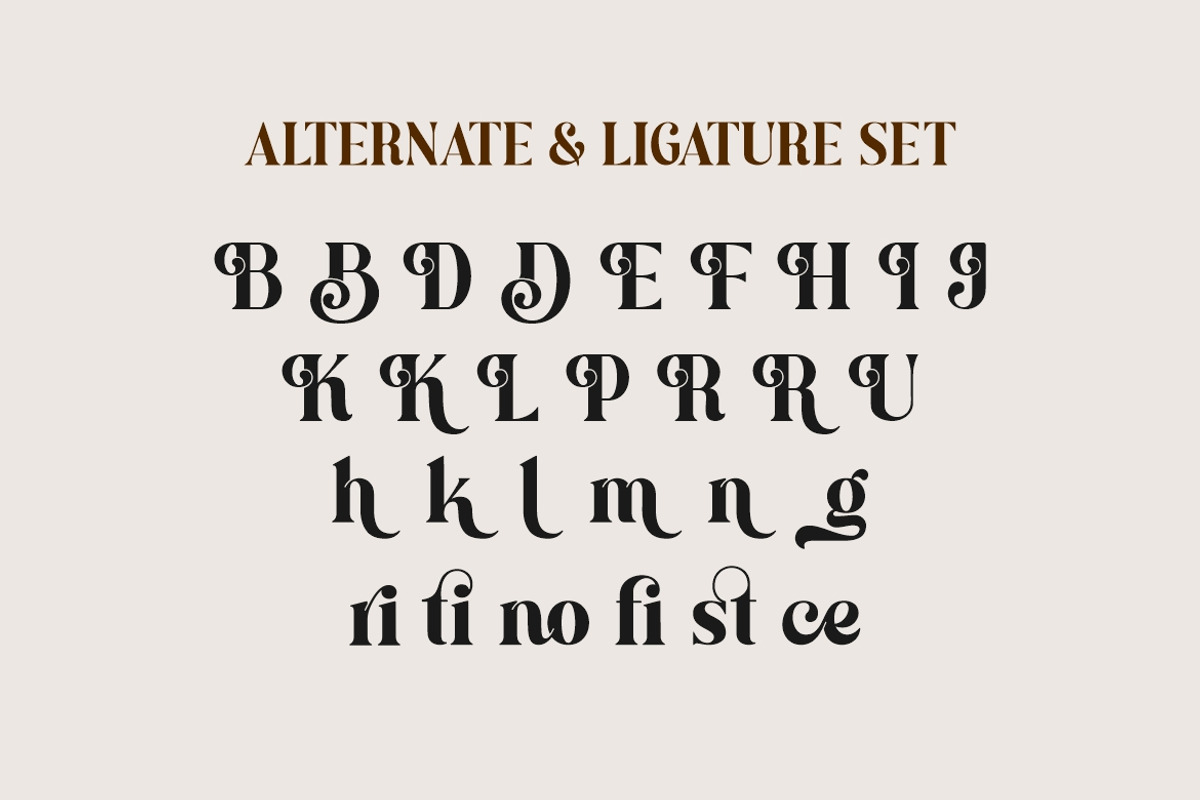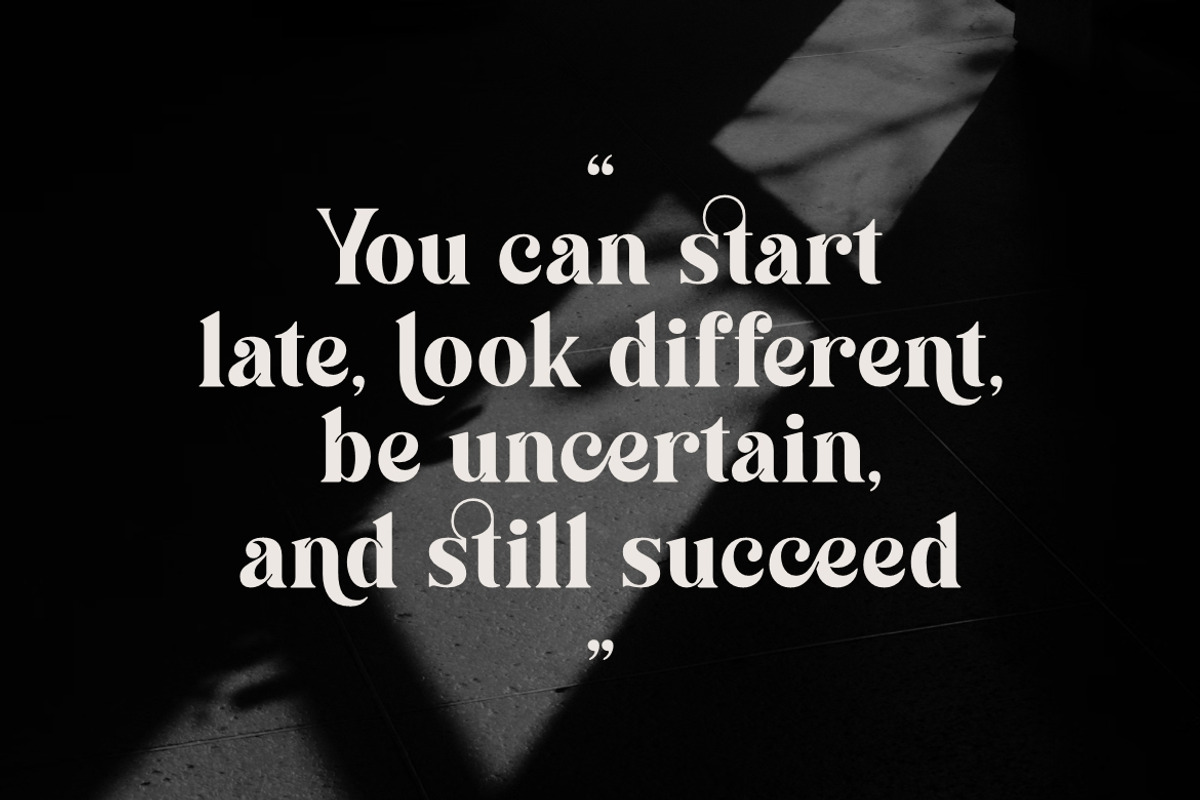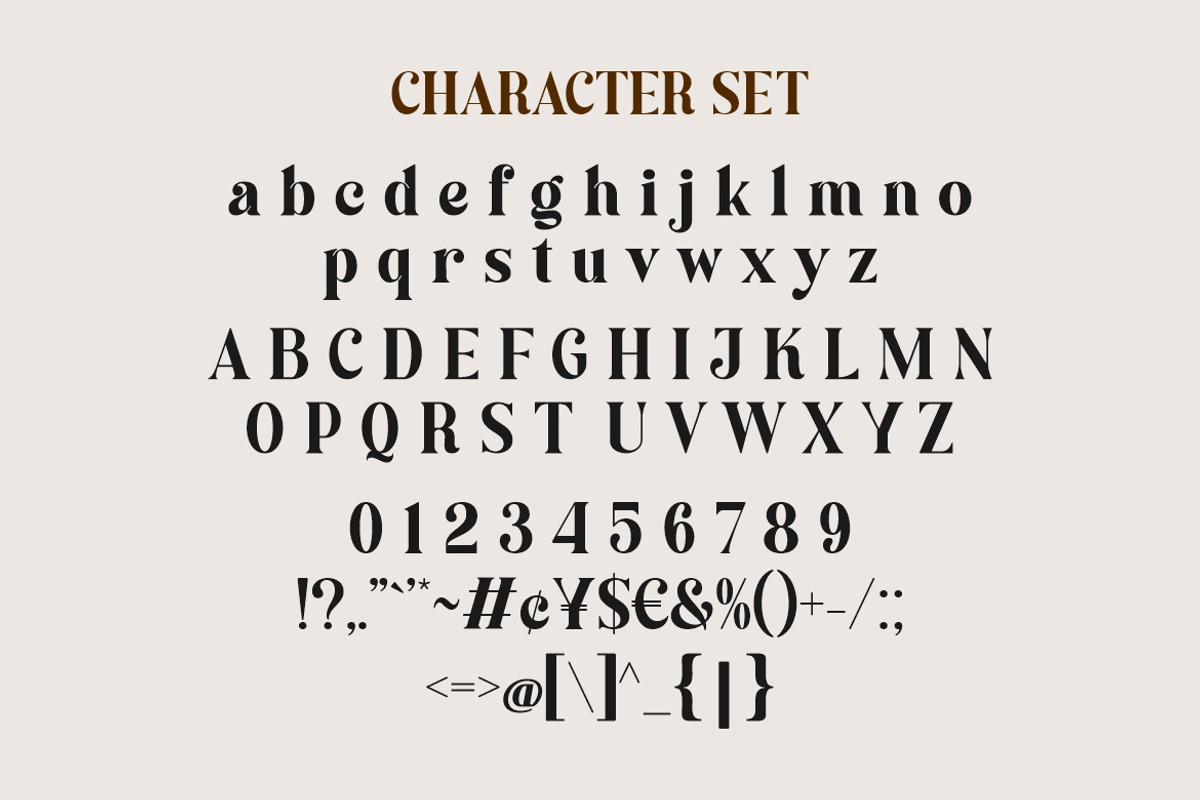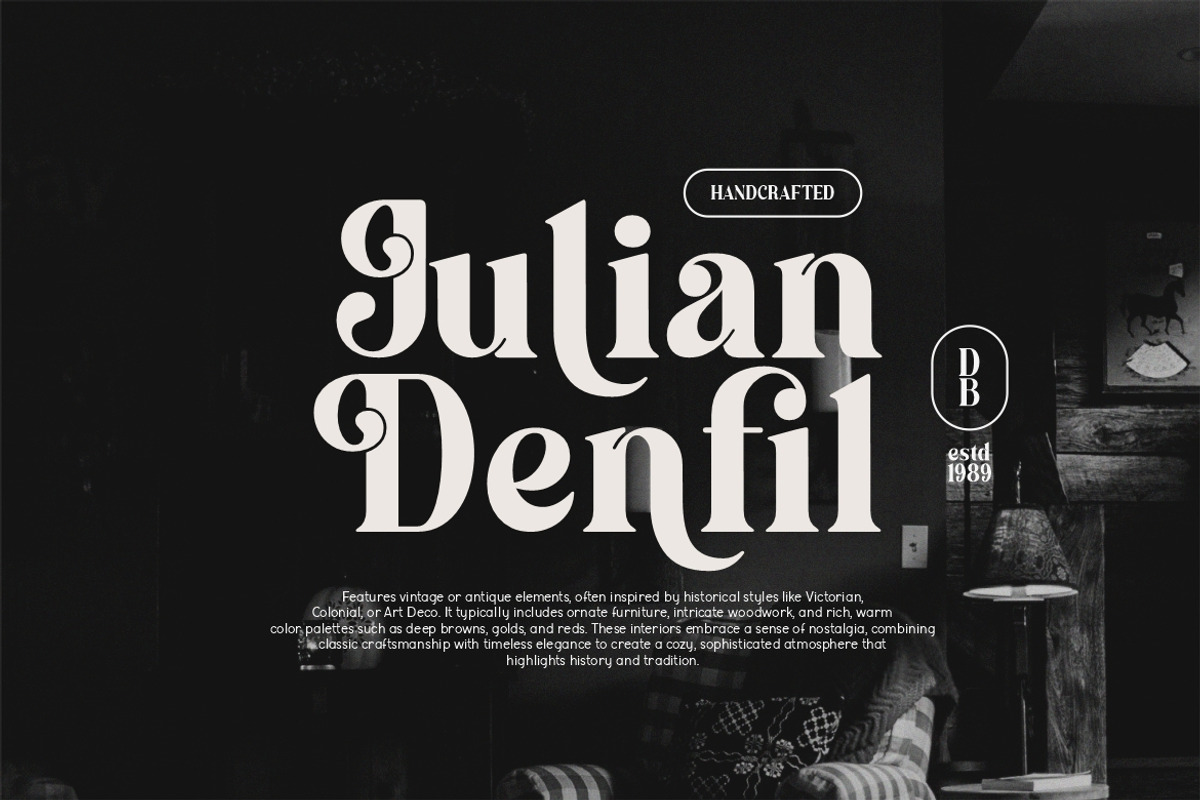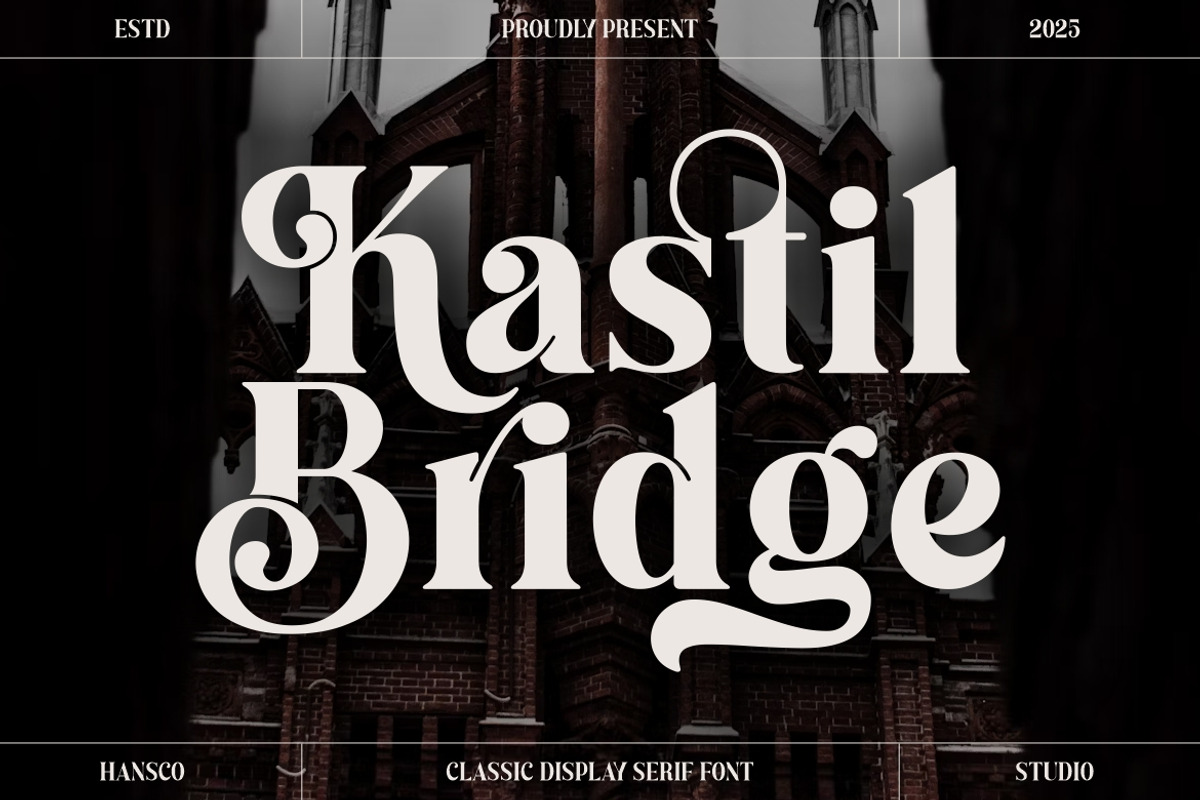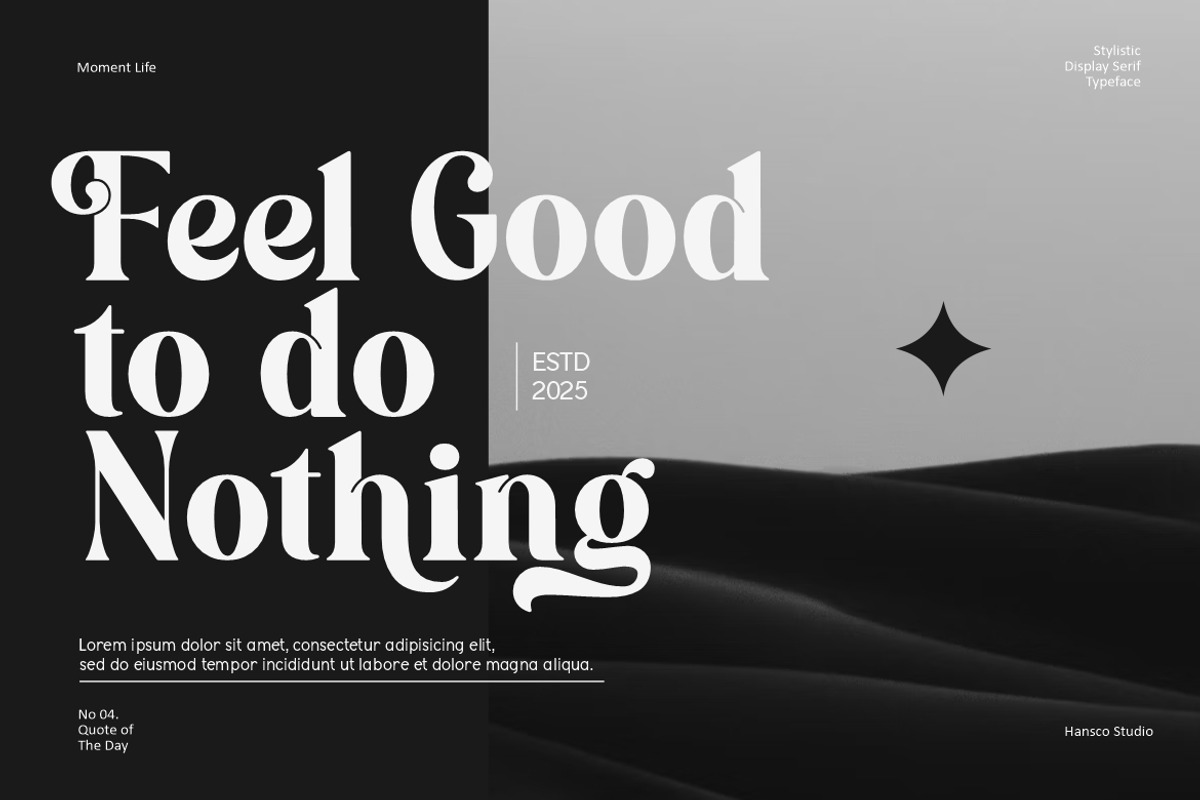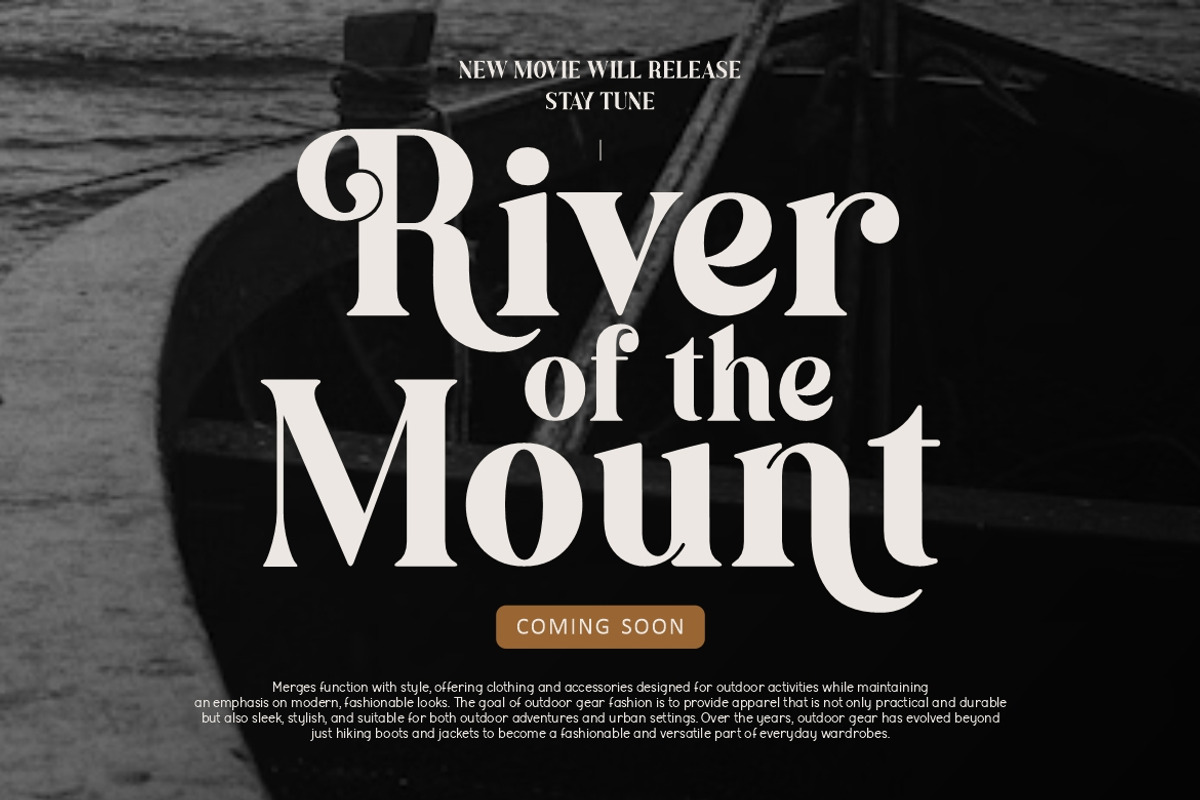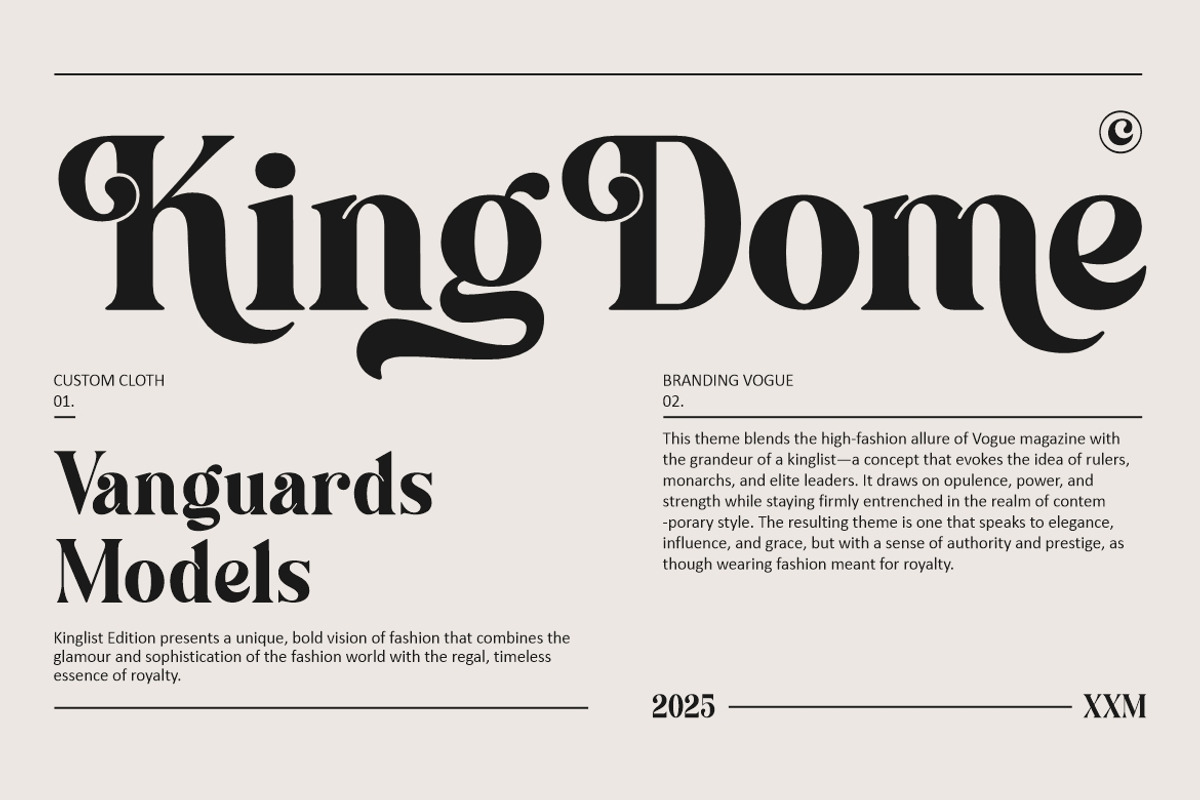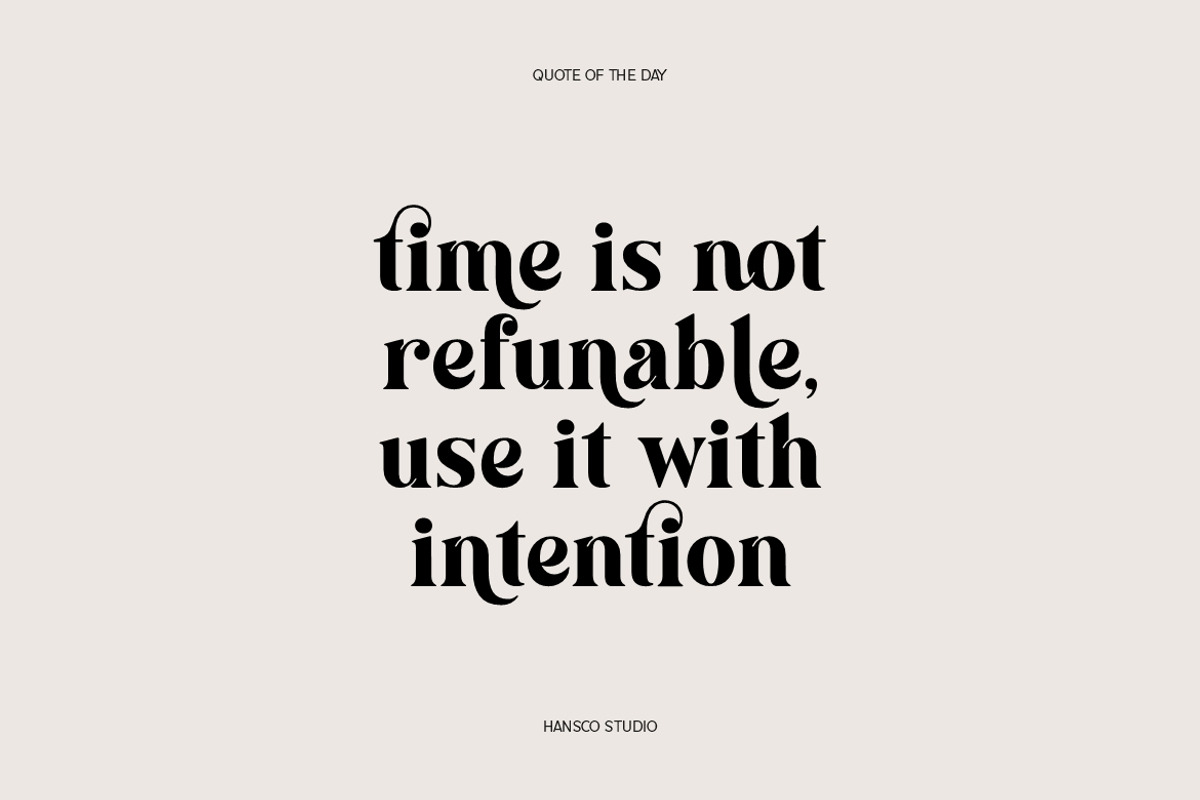
Kastil Bridge Font
Kastil Bridge is a bold and classy display serif font. It features an incredibly luxury and vintage style, while still keeping a elegant feel. this font is perfect for making designs project especially for those of you who want something classy with a sharp swash style in characters on your logo or brand. It’s great for branding, logo designs, logotype, craft, posters, packaging and much more. You will also get several alternative characters on lowercase, uppercase and ligature in them, so that it will provide many great choices in your design. Comes with a full uppercase, lowercase, numbers, punctuation and multilingual support.
- Number & Punctuation
- Ligature & Alternate character (for some character)